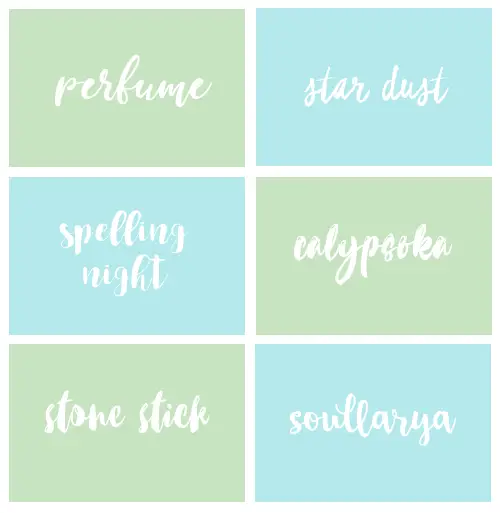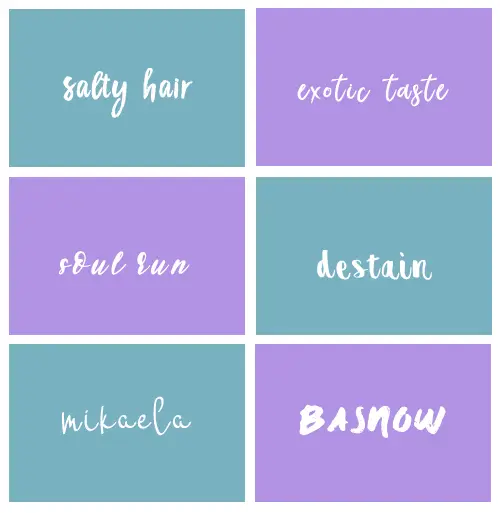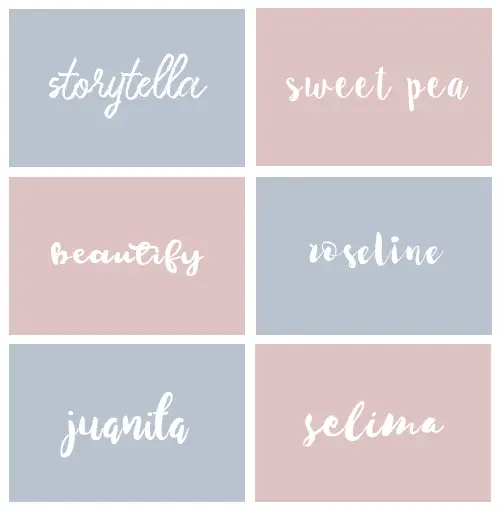
40+ Handwritten Script Fonts Collection Vol
Introducing the 40+ Handwritten Script Fonts Collection Vol, a curated selection of beautifully crafted handwritten script fonts designed to add a personal touch to your projects. Each font in this collection features unique characteristics that mimic the fluidity and charm of natural handwriting.
• Over 40 distinct handwritten script fonts
• Variety of styles and weights to suit different design needs
• Easy-to-read characters with elegant curves and flourishes
• Includes multilingual support for broader accessibility
• Custom ligatures and alternate characters for creative flexibility
Ideal for branding, logos, invitations, greeting cards, and any project that requires a warm, handwritten feel. Use these fonts to create memorable designs that resonate with your audience.